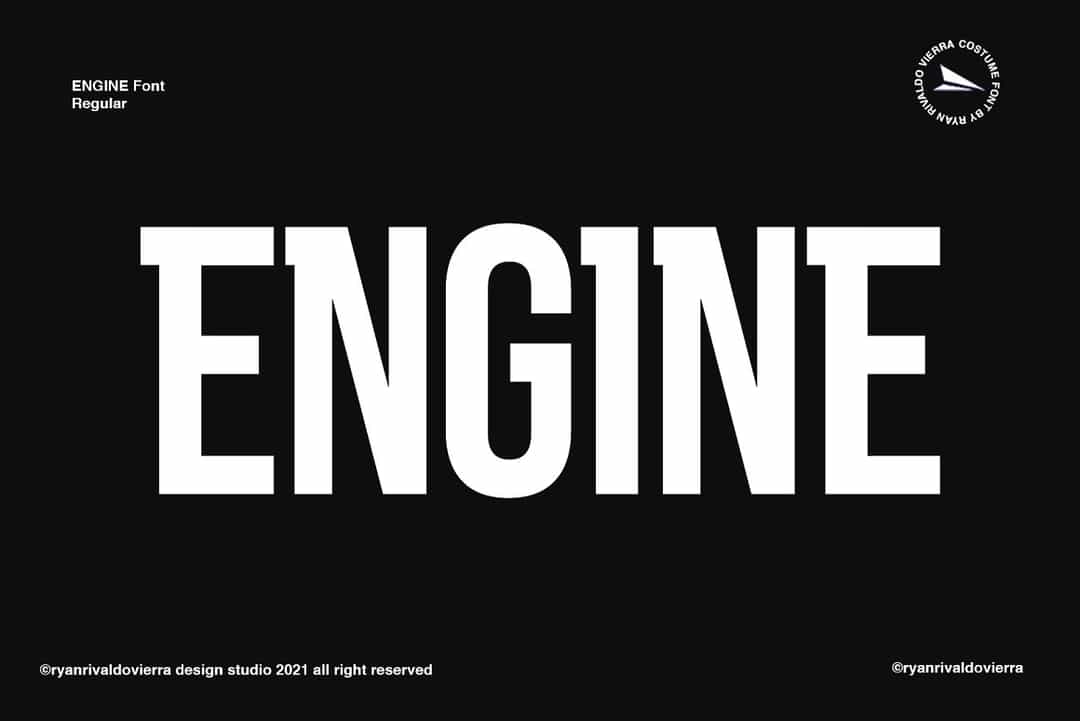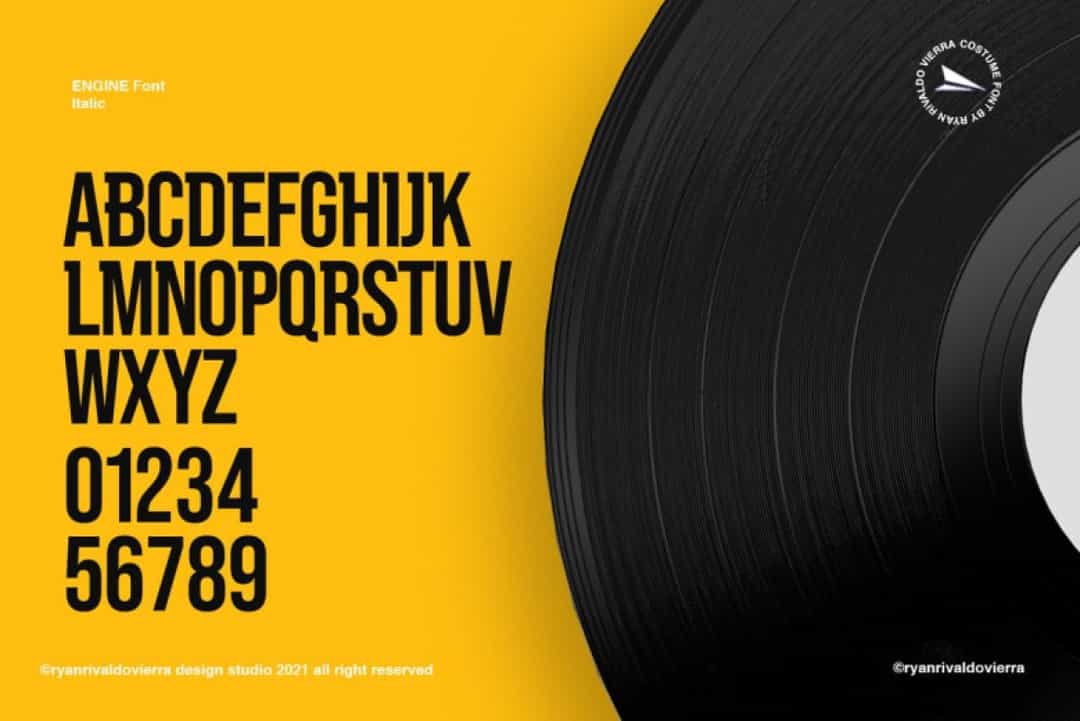
Engine is an imposing font designed for athletic use. Crafted to become an instant classic, this font can help take your creative ideas to new heights! Ideal for posters branding logos brands sports events.